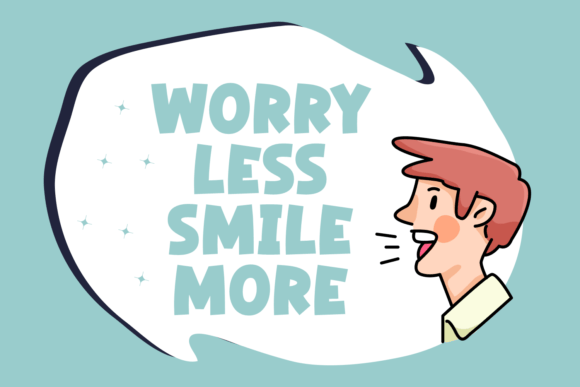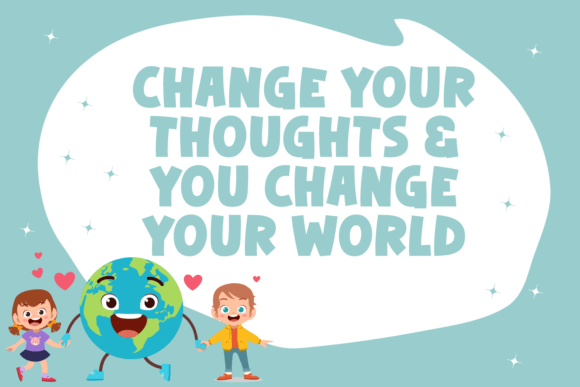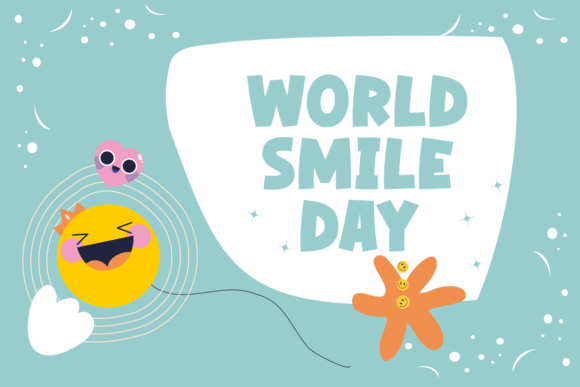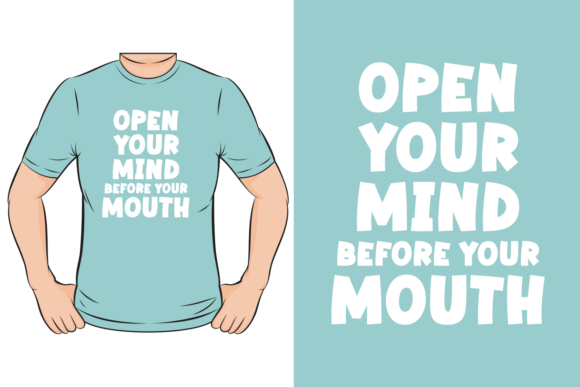
Introduction to Hallo Bocil Font
HALLO BOCIL is a playful and energetic all caps bold font that’s perfect for adding a touch of fun to your designs.
With its bold strokes and whimsical flair, it brings a joyful and youthful vibe to any project Let your creativity run wild with HALLO BOCIL, as it stands out and adds a cheerful twist to your text.